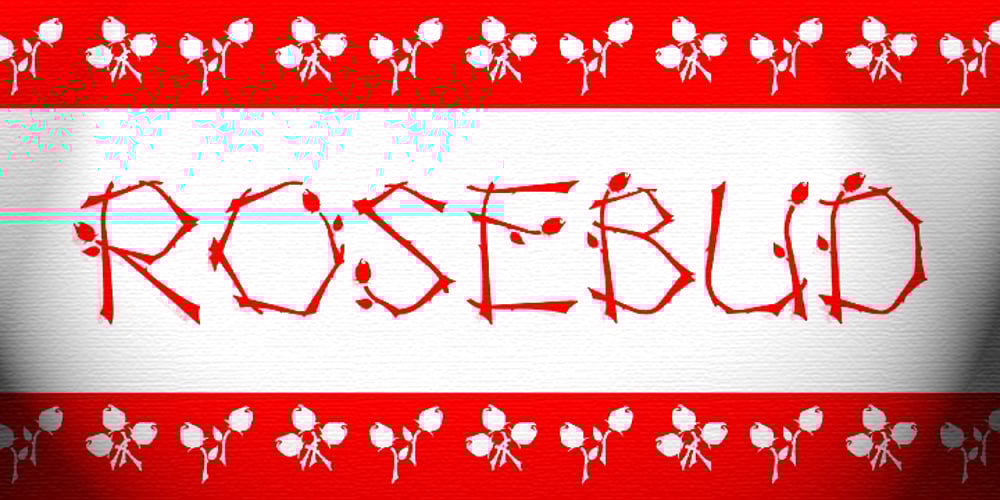
Rosebud Font Family was designed by Azelea Rodgers and published by aRc. Rosebud contains 1 styles and family package options. Rosebud is a great blend of simple yet organic rosy caps. Each big caps has a single rose while the small caps has the prickly, thorny stems. This decorative TrueType font is great for any occasion (from Wedding to Sweet 16 Party) or for surprising a rose lover with a flowery note. Plus, you can create your own border patterns or flower arrangements by using the rosy and/or the thorny punctuation marks.